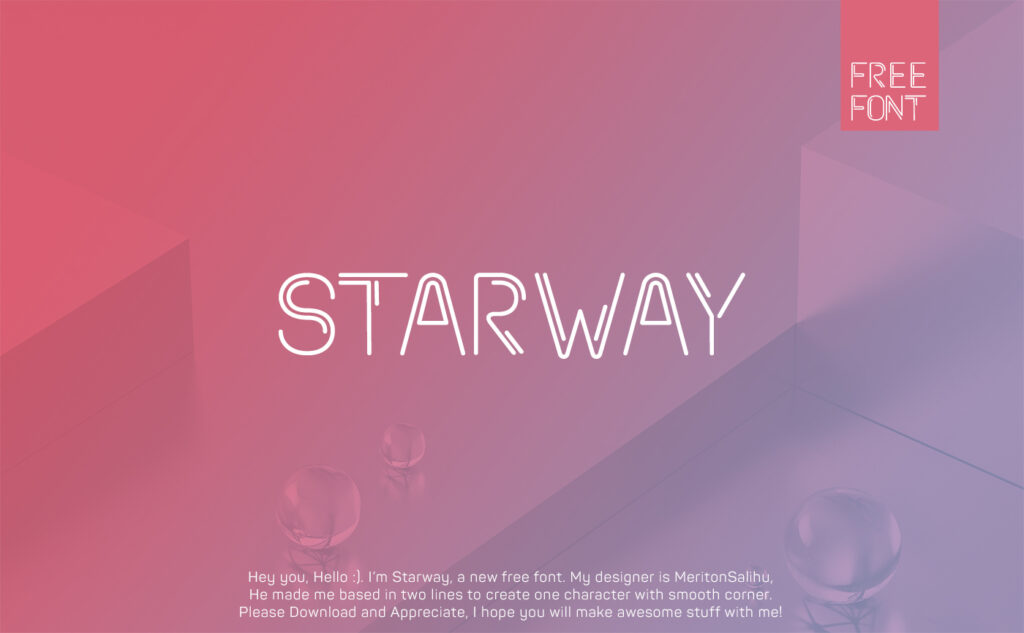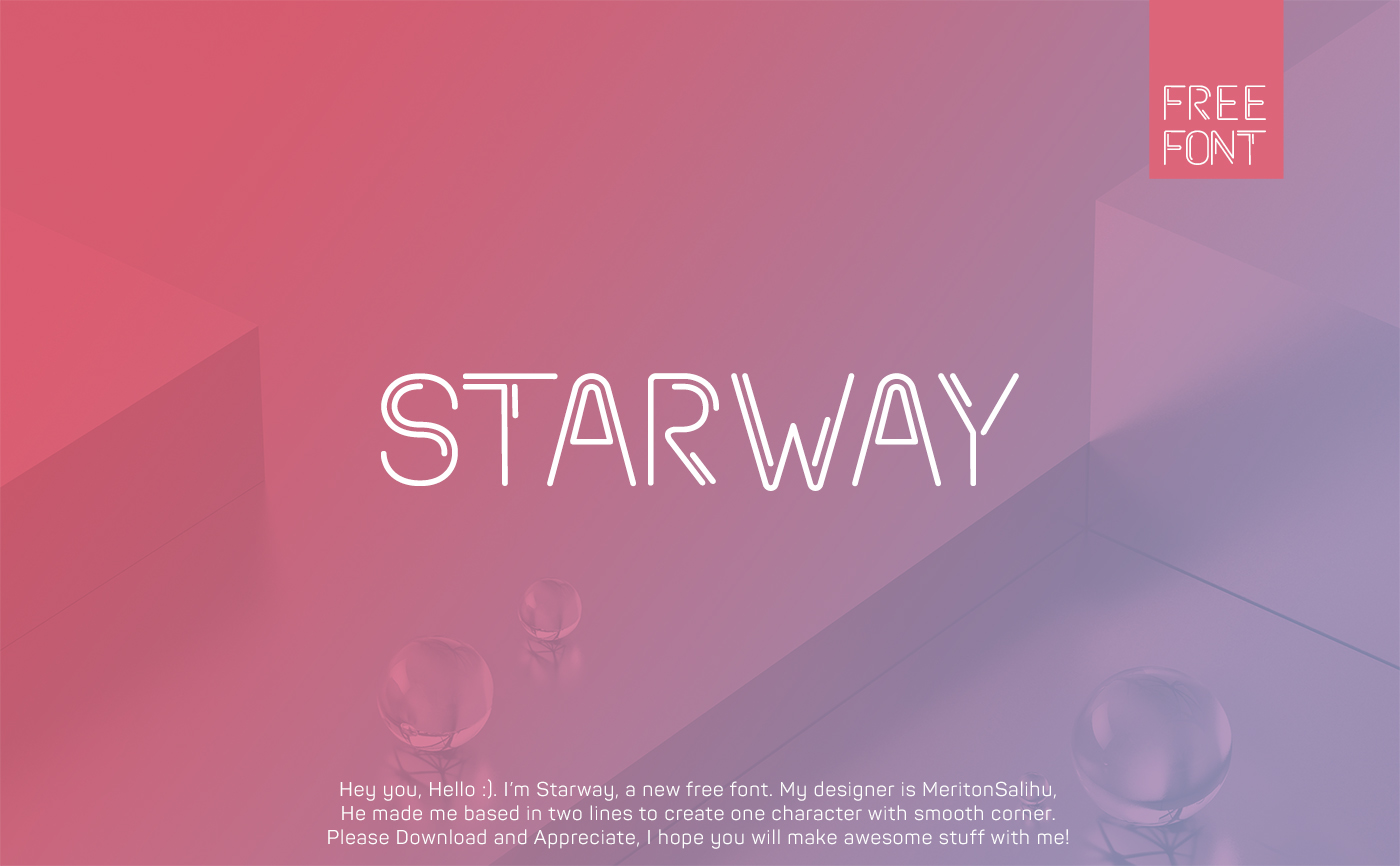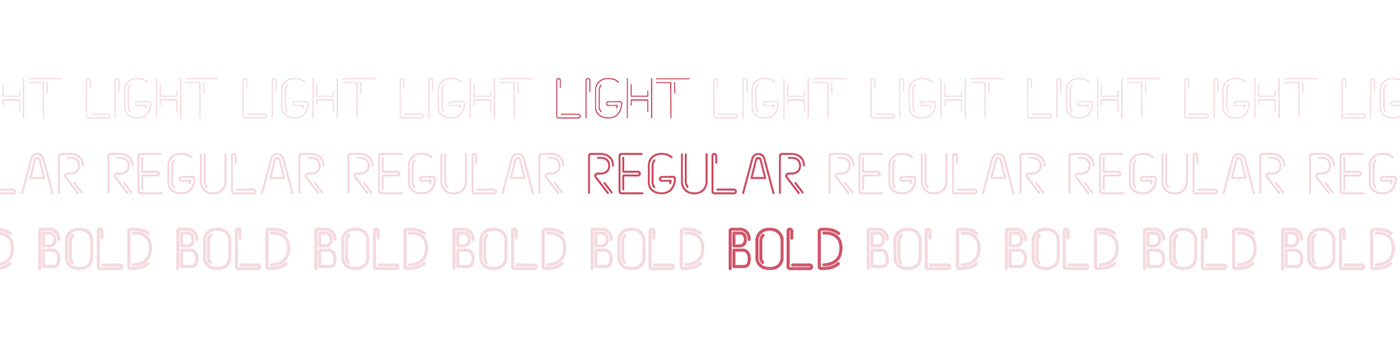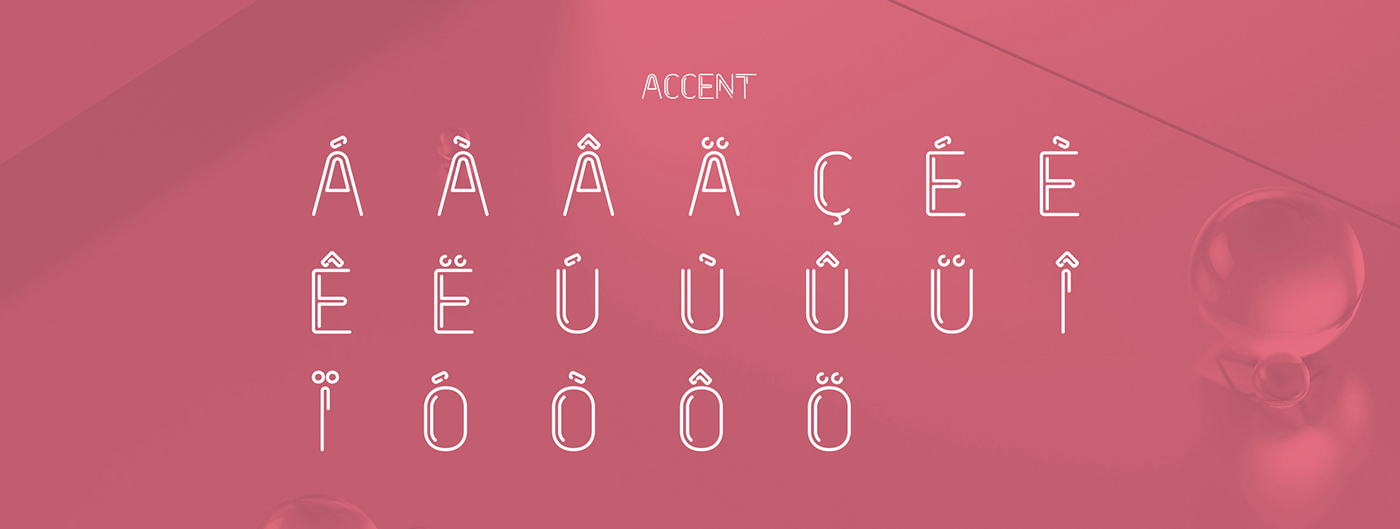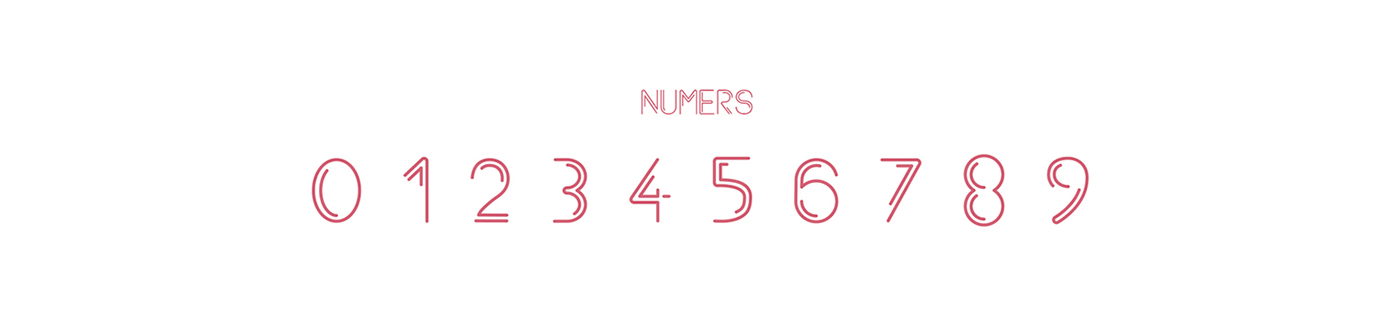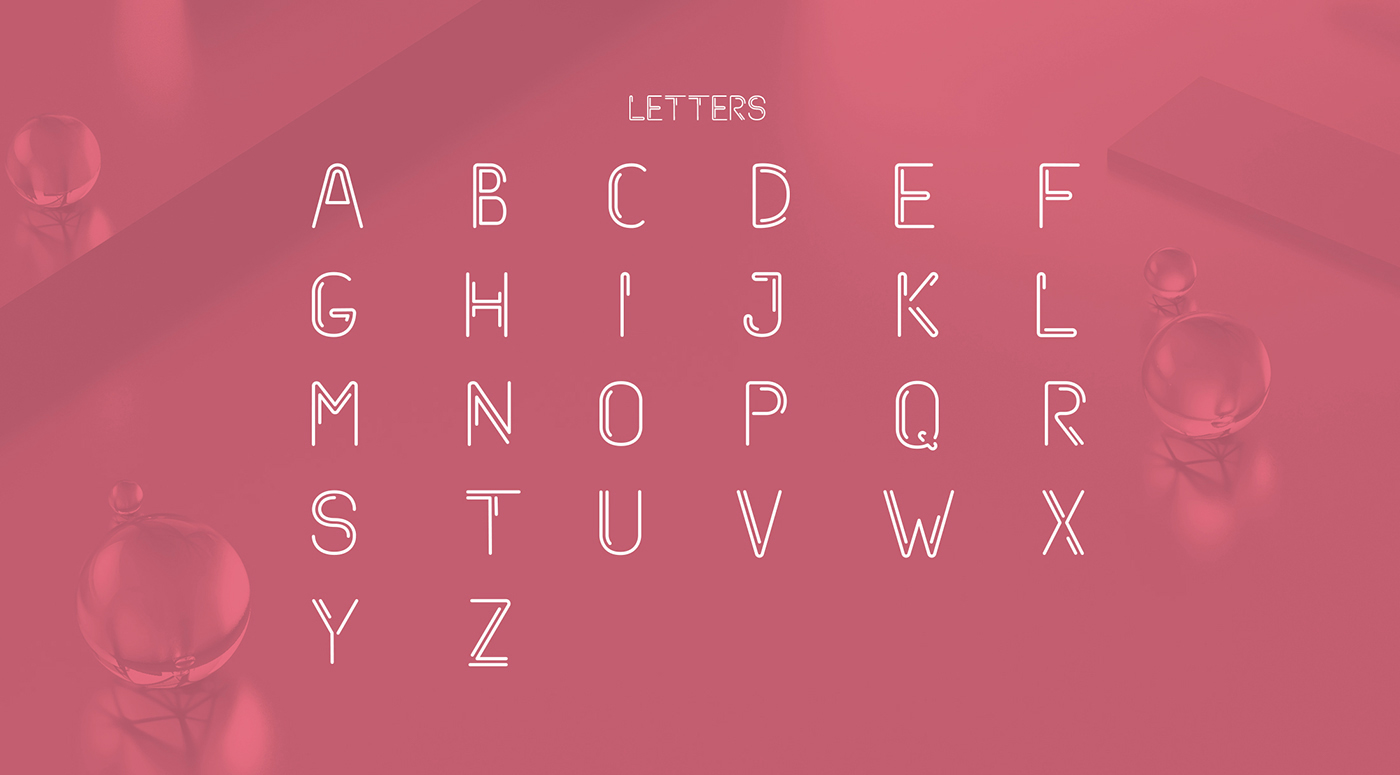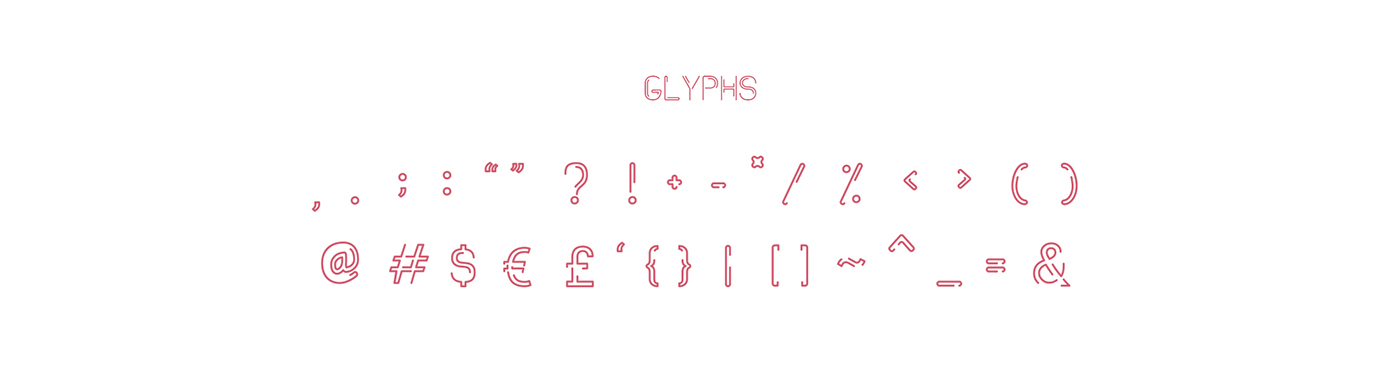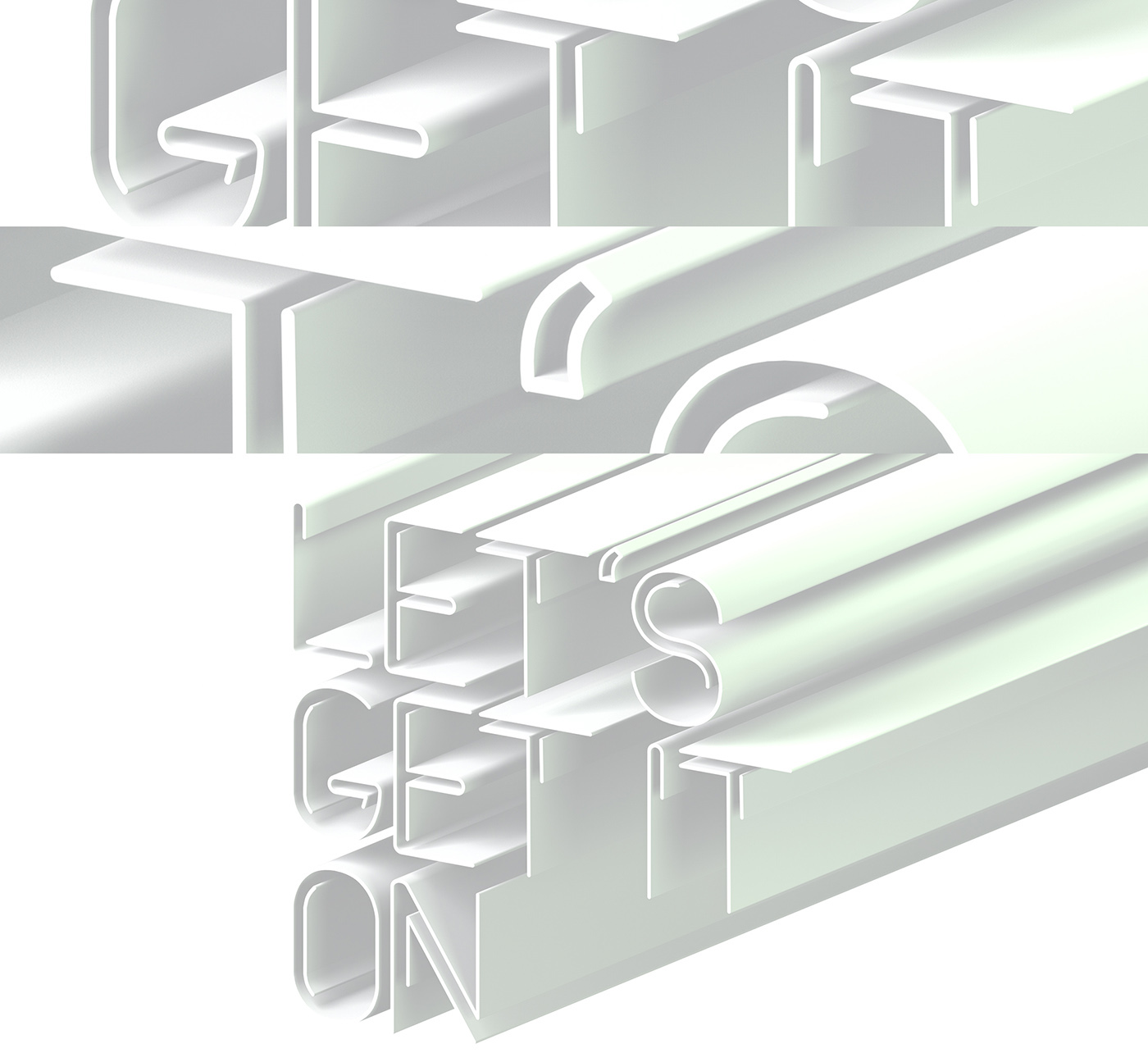
If you’re looking to add a cosmic touch to your typeface toolbox, then this font is certainly for you. Designed by Meriton Salihu from Kosovo, Starway is a wonderful addition to any font library. Download Starway font beneath the previews: